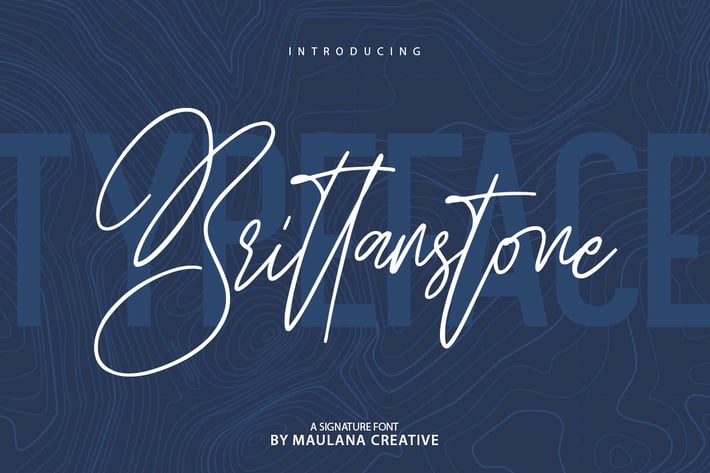
Brittanstone - Signature Font Sans Serif
Give your designs an authentic brush handcrafted feel. "Brittanstone" is perfectly suited to signature, stationery, logo, typography quotes, magazine or book cover, website header, flyer, clothing, branding, packaging design and more.